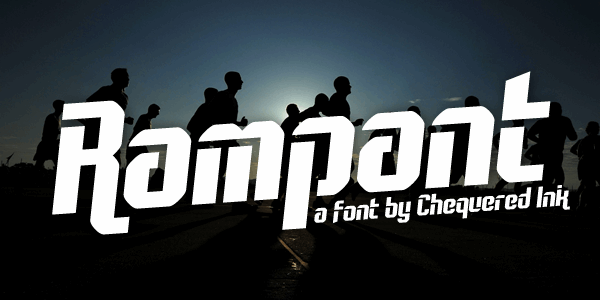
Free Rampant Font
Featuring the beautiful free rampant font. Go give some love to Font Space for creating this top-notch free font. Showcase your designs like a graphic design pro by adding a new touch with this fancy font.